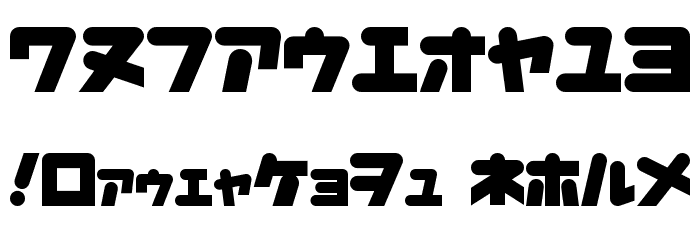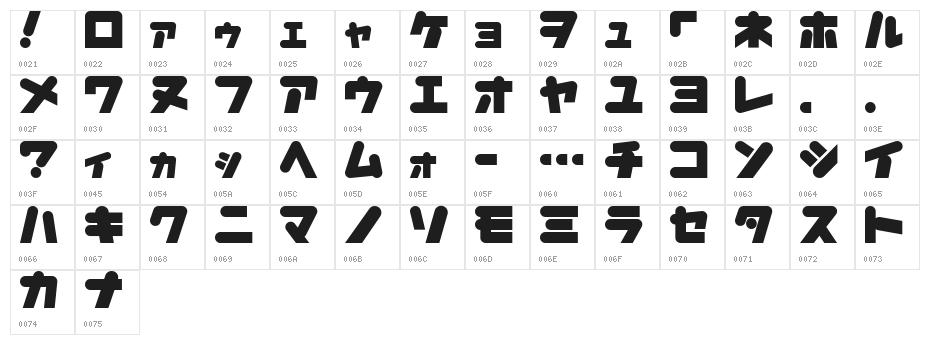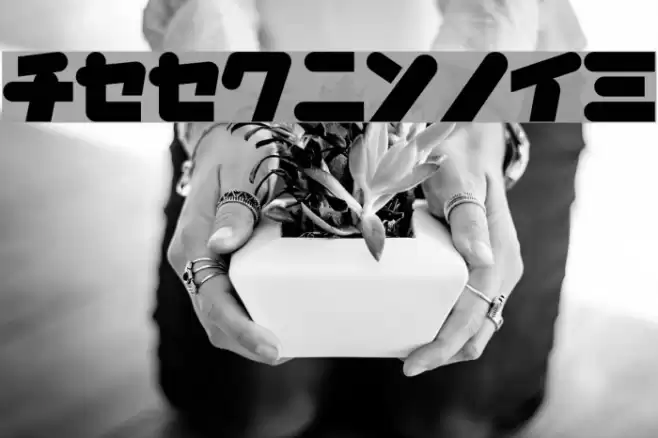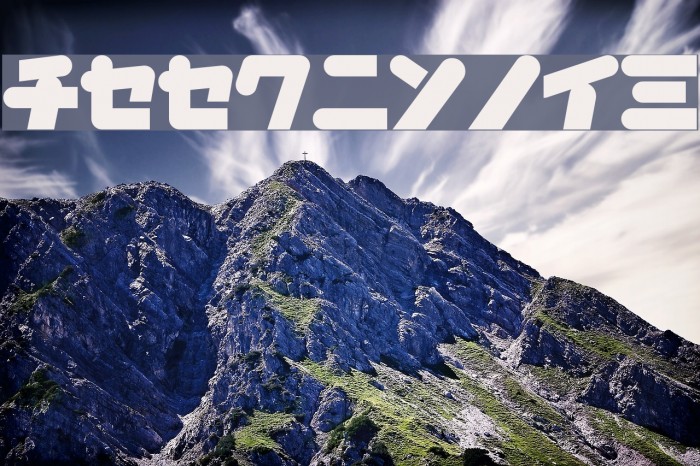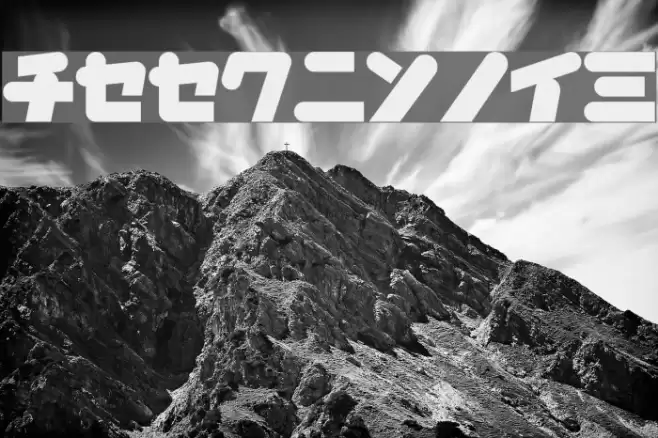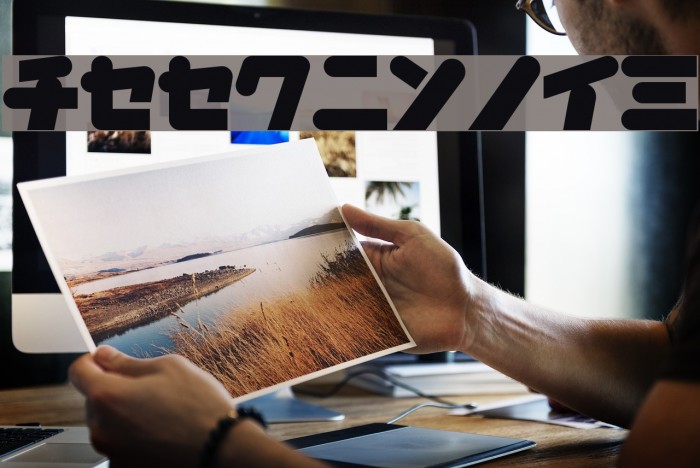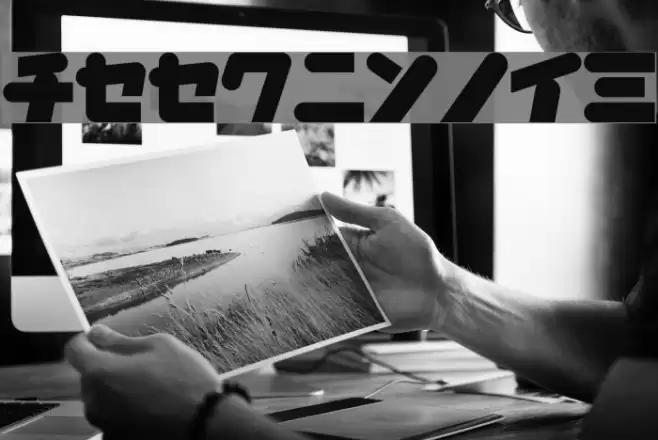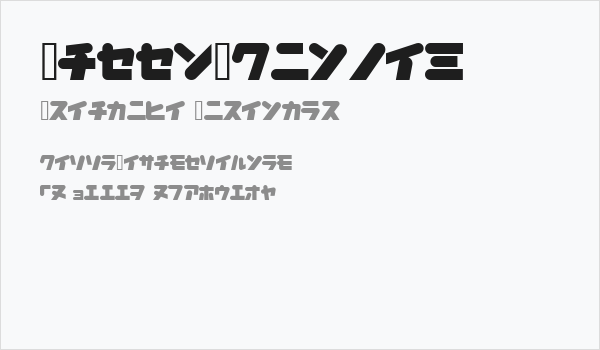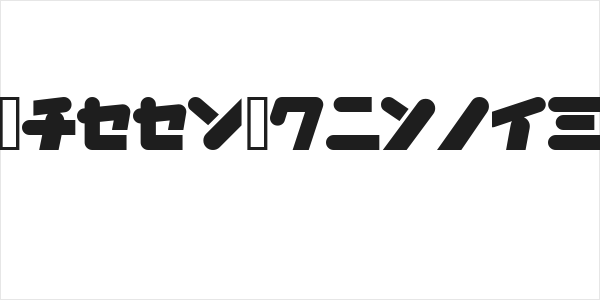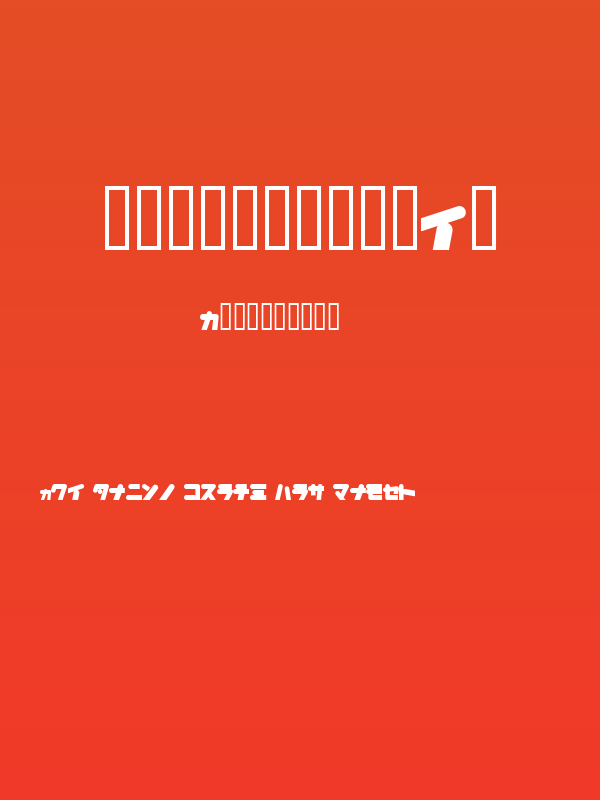
HappyChicken Font
HappyChicken Description
This font features bold, geometric shapes with a playful and dynamic style. The characters are constructed with thick strokes and rounded edges, giving them a friendly and approachable appearance. The design incorporates a mix of straight lines and curves, creating a sense of movement and energy. The font's boldness makes it highly legible and impactful, suitable for catching attention. Its unique style combines elements of modern and retro aesthetics, making it versatile for various design contexts. The overall look is both contemporary and nostalgic, appealing to a wide range of audiences.
| Overall Style | Modern, Retro |
| Proposed Projects | Ideal for branding, posters, packaging, and any project requiring a bold, eye-catching typeface. |